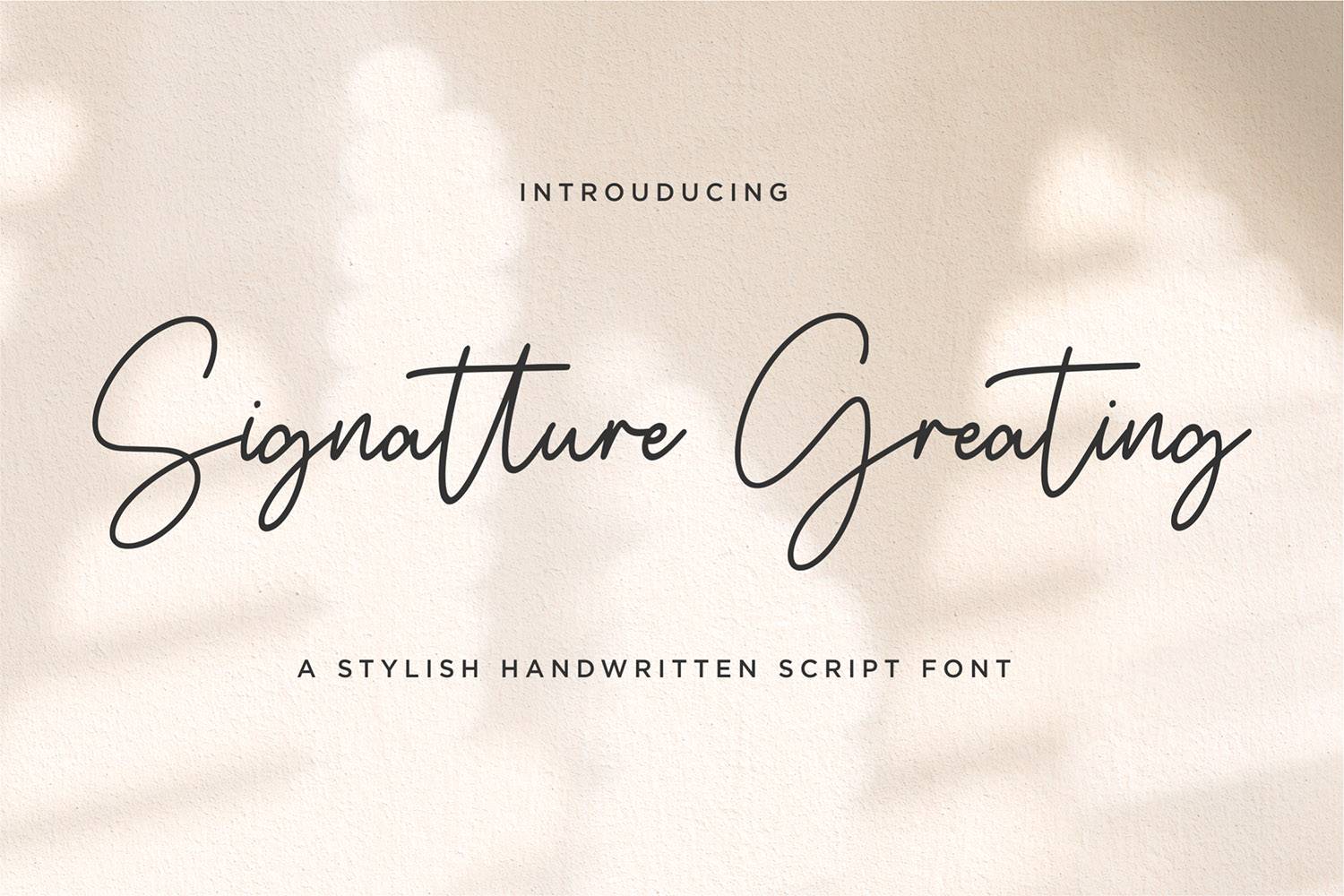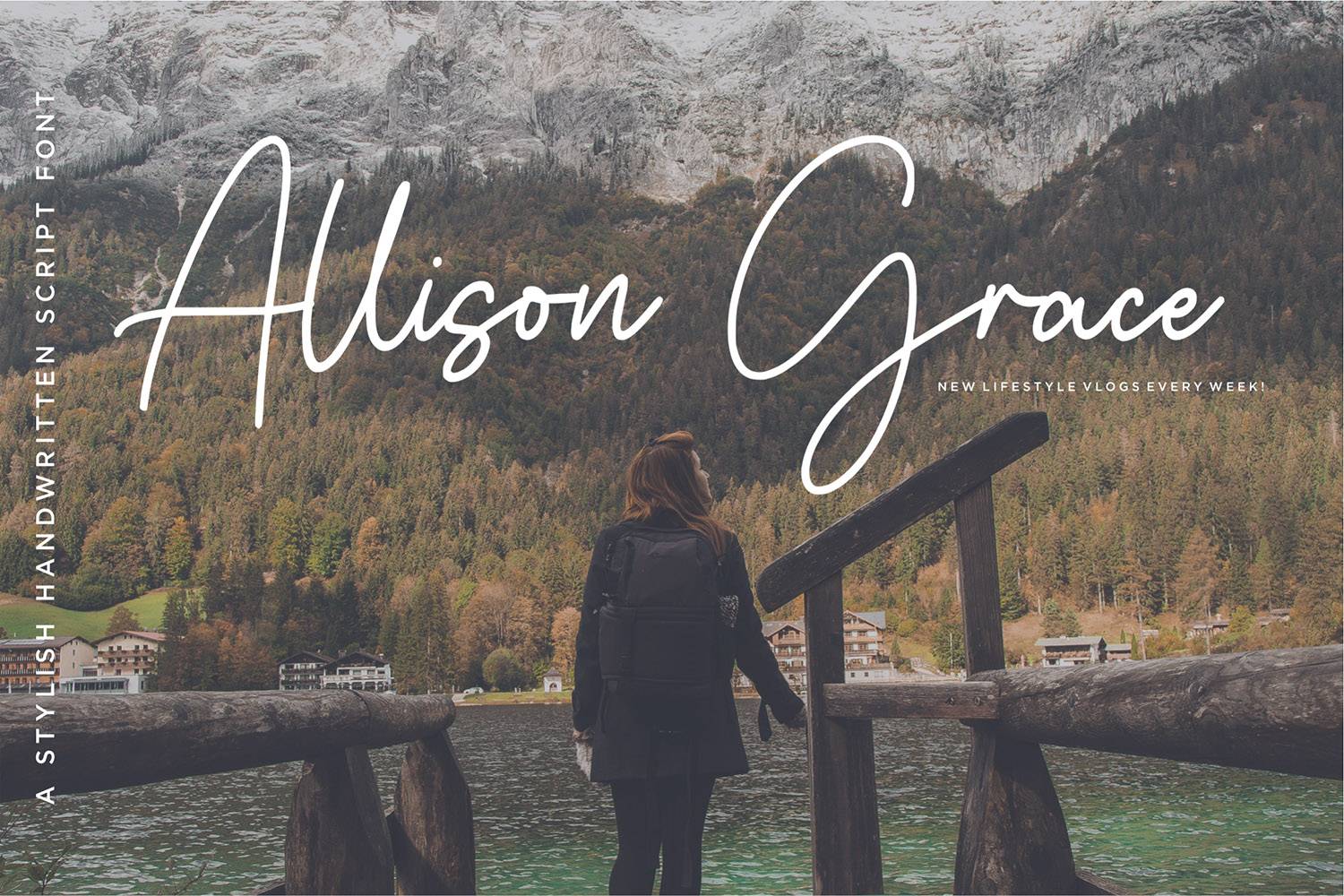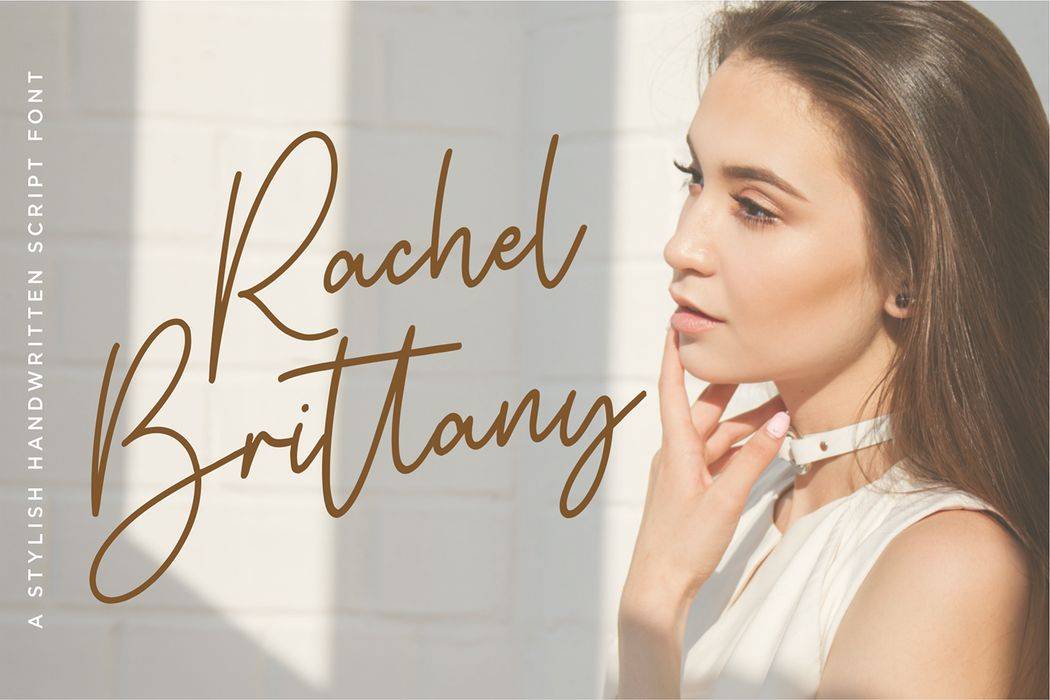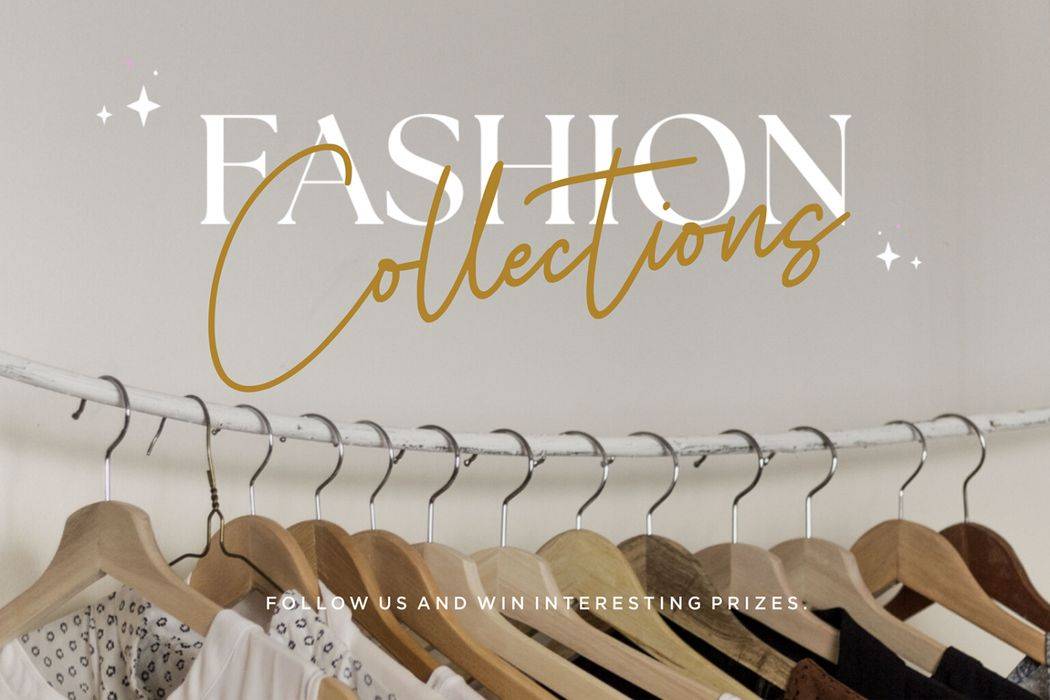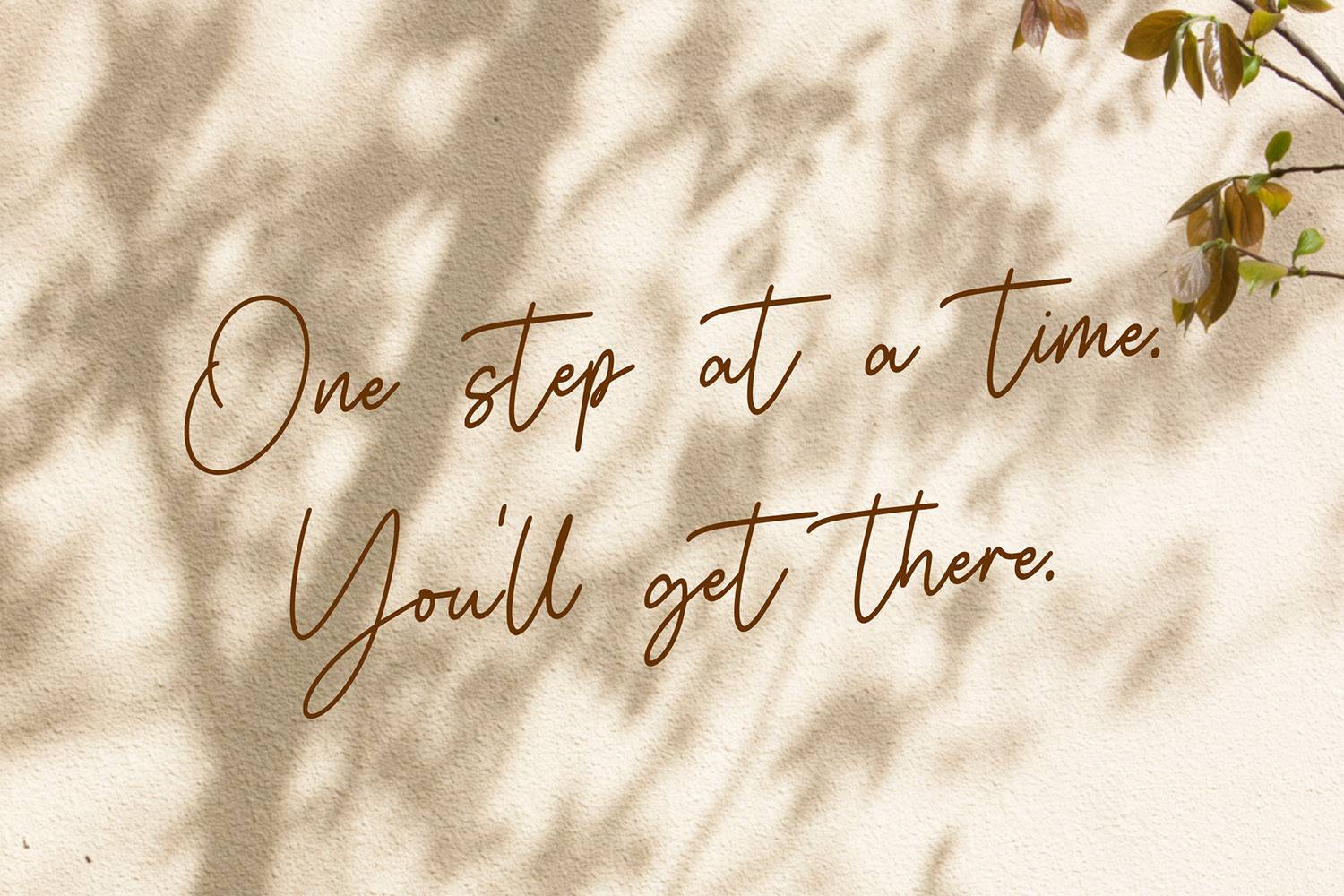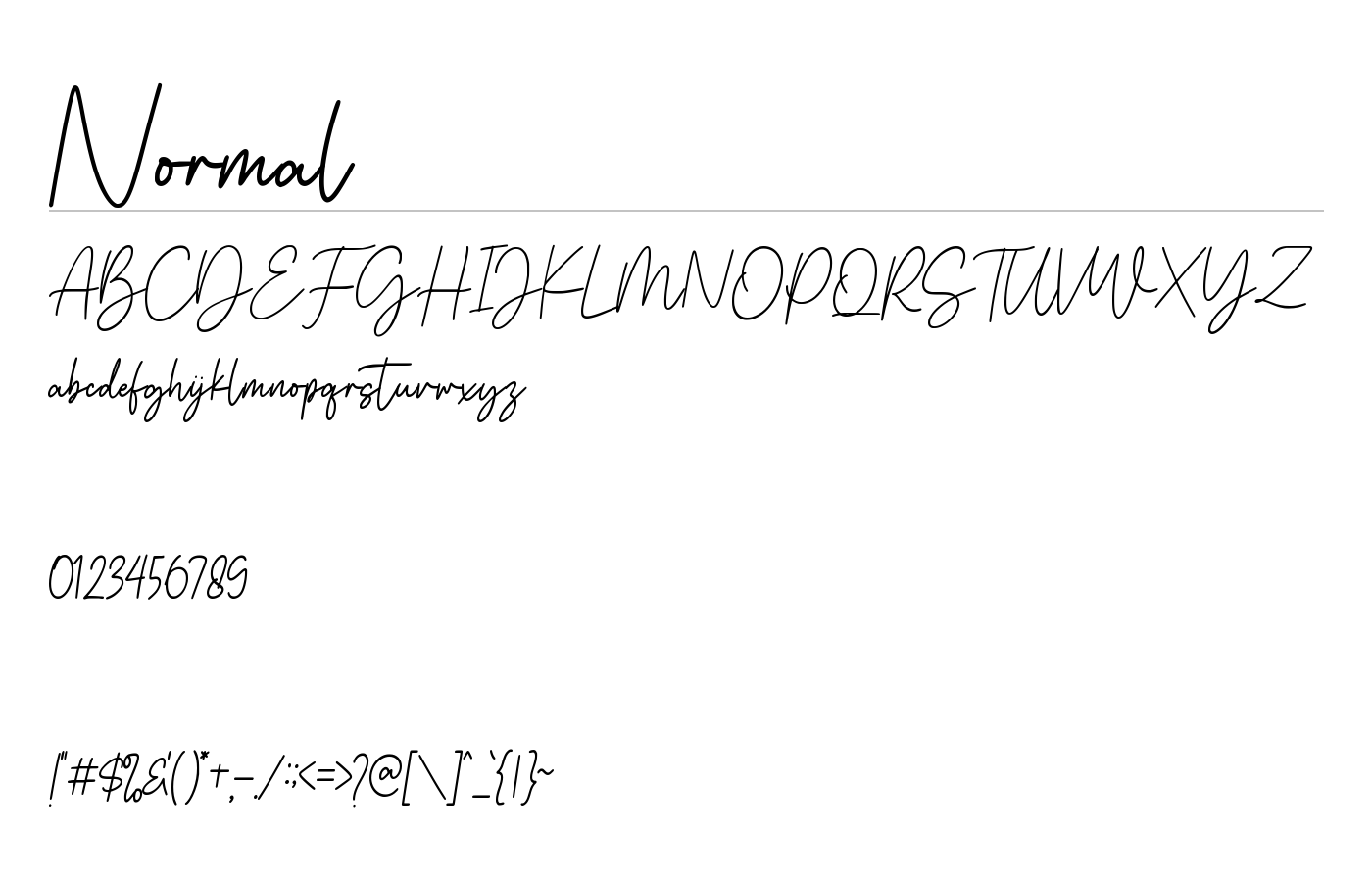
Signatture Greating is a delicate, handwritten script font with a light, airy feel and slender, flowing strokes that mimic natural penmanship. Its casual elegance and graceful letterforms make it ideal for personal branding, invitations, and stylish headlines where a friendly yet refined touch is desired. This font works beautifully in creative and intimate contexts, adding a personal, approachable personality to any design.
Signatture Greating Font
About Signatture Greating Font